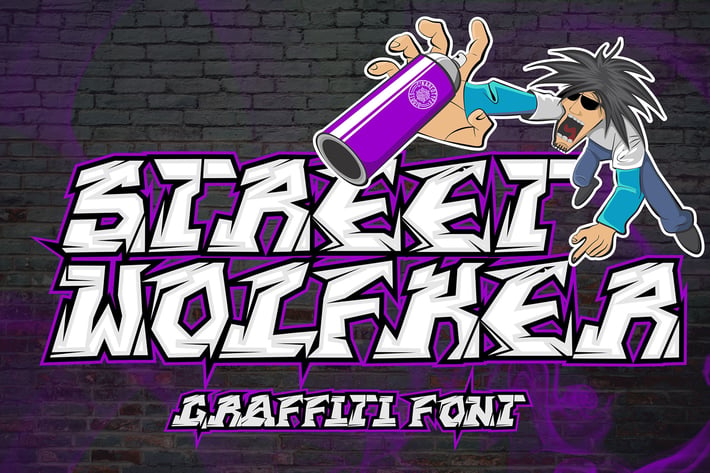
Street Wolfker - Unique Graffiti Font
Street Wolfker is a unique display font with a graffiti-like appearance. Use this font for any crafting project, logotype, advertising, wall decoration, and pretty much anything that requires a personalized look. Take your designs to the next level with this stunning font!